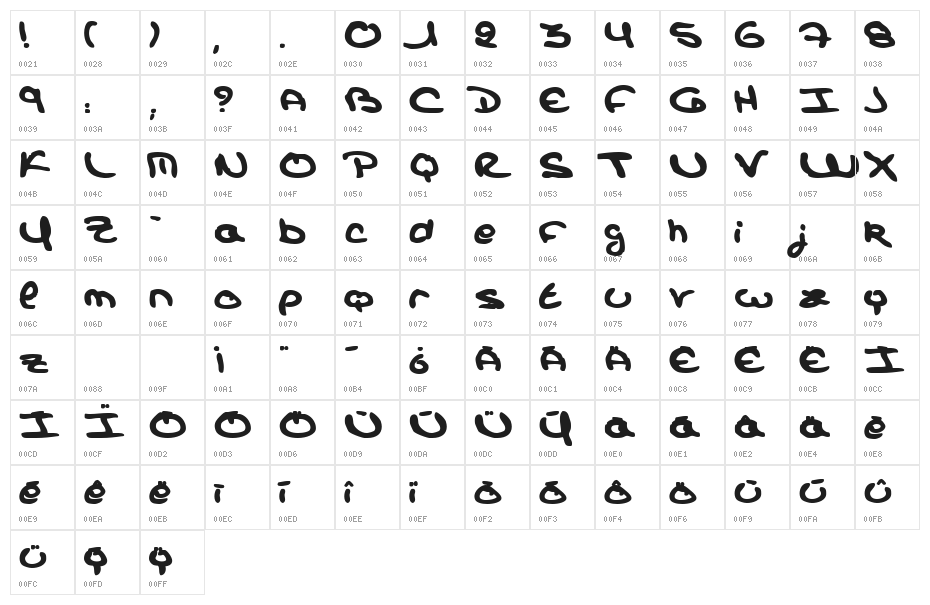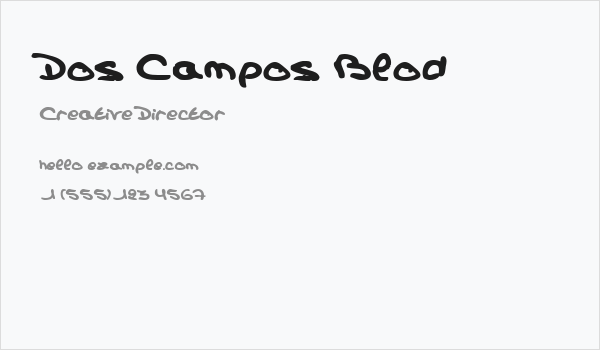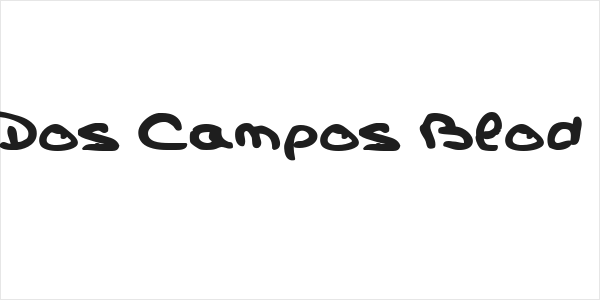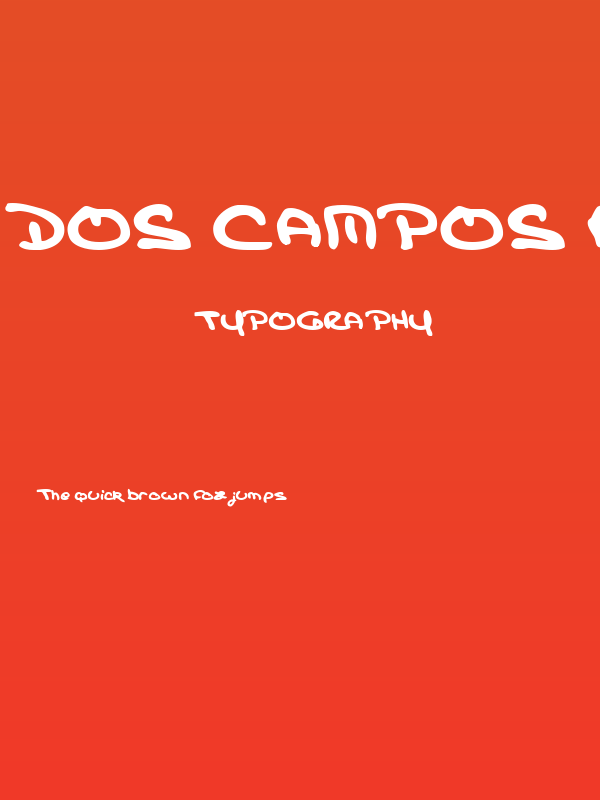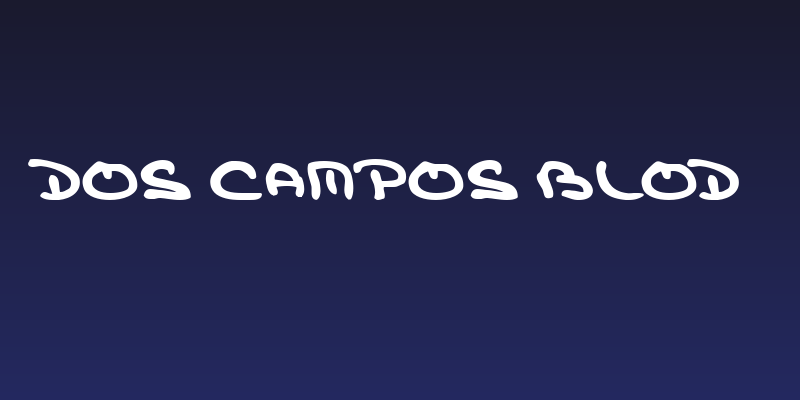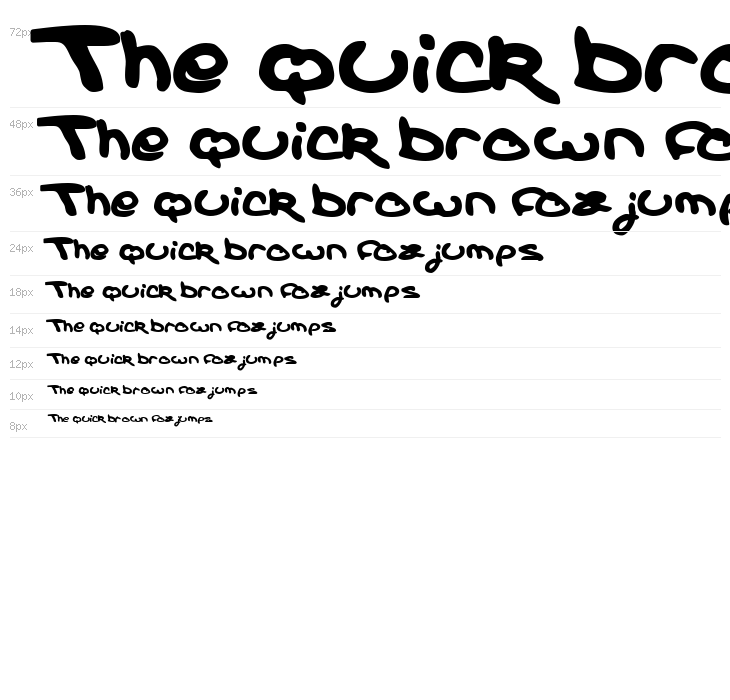
Dos Campos Blod Font
Dos Campos Blod Description
This font exhibits a bold and playful style with a handwritten appearance. The characters are rounded and slightly irregular, giving it a casual and informal feel. The uppercase and lowercase letters maintain a consistent flow, with some letters featuring unique loops and curves that add to its charm. The numbers and special characters are equally bold, maintaining the overall aesthetic. This font is ideal for projects that require a friendly and approachable look, such as children's books, casual branding, or creative posters.
| Proposed Projects | Children's books, casual branding, creative posters, informal invitations. |